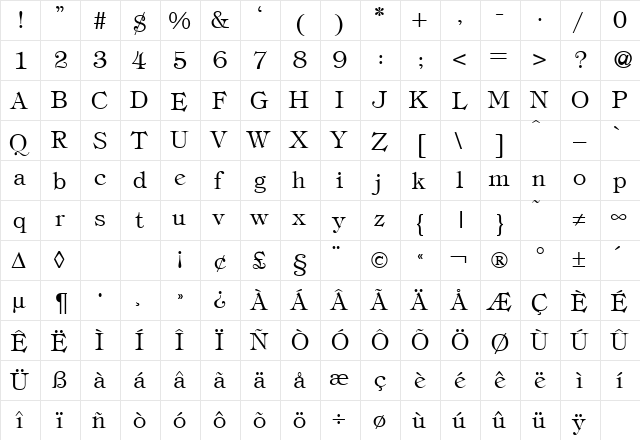
TiffanyTwoLight Regular
Design Context for TiffanyTwoLight Typeface
TiffanyTwoLight is a composed and adaptable typeface that performs quietly and consistently across a wide range of design contexts. Its slender proportions lend an understated elegance to any composition.